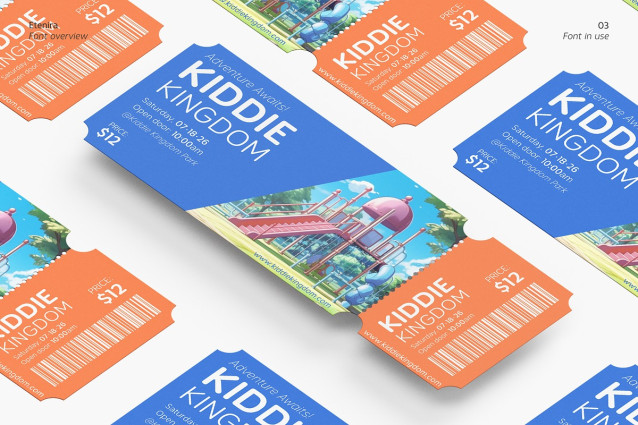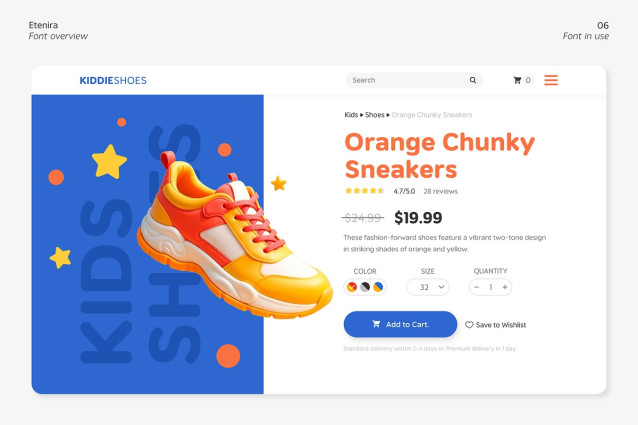
Etenira Font
Etenira Font is a Modern & Friendly Rounded font family that blends soft curves with balanced proportions, bringing warmth and friendliness to any project. With its clean, contemporary style, it offers versatility for branding, packaging, editorial design, web interfaces, and beyond.